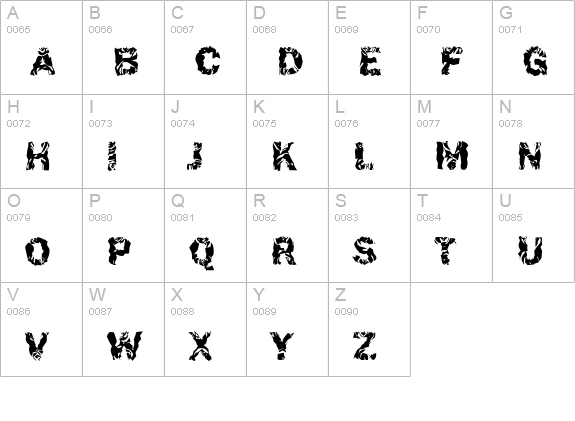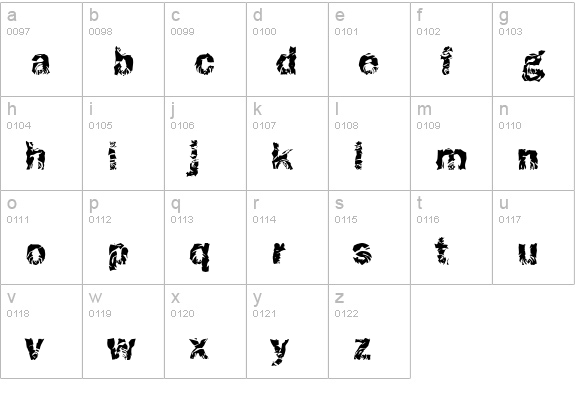
Funky37-Bold Font Details
Funky37-Bold is a strong, high-contrast variant in the Funky37 typeface family \xE2\x80\x94 well suited to headlines, attention-grabbing titles, and strong calls-to-action.
Funky37-Bold font is a vibrant and energetic typeface that exudes a sense of fun and playfulness. With its bold and dynamic letterforms, this font is perfect for making a statement in your designs. Whether you're creating posters, flyers, or branding materials, Funky37-Bold is sure to capture attention and add a touch of whimsy. The best part? Funky37-Bold is completely free to download at FontsMarket.com. You can easily access this unique font and incorporate it into your projects without any cost. Don't miss out on the opportunity to add a funky twist to your designs with Funky37-Bold!